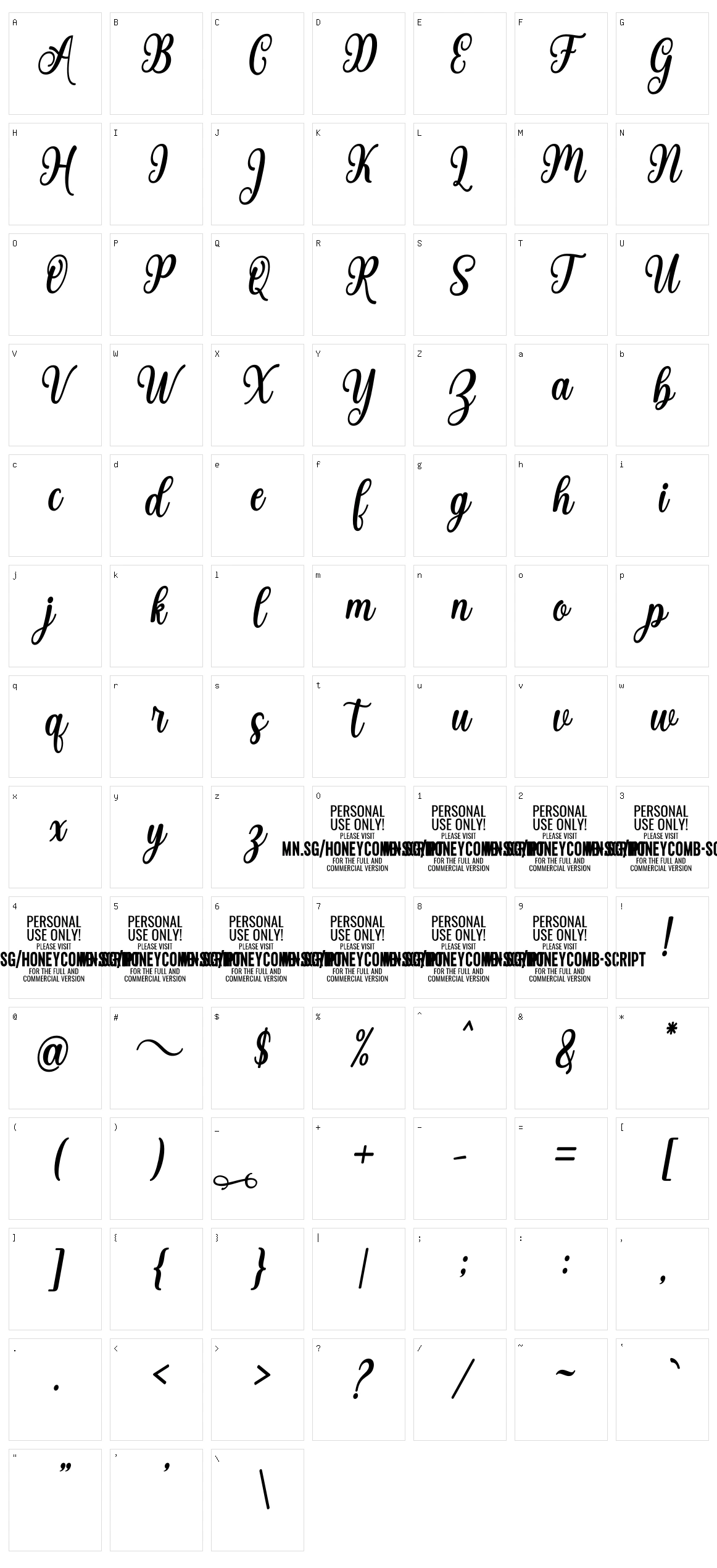
Honeycomb Script is a delightfully charming handwriting font, boasting a cute and quirky aesthetic. With its naive and endearing style, it's perfect for adding a touch of craft-inspired charm to your creative projects.
The birth of Honeycomb Script was sparked by blooming wildflowers and bustling honeybees. The harmonious dance of the bees in their natural habitat inspired the unique and playful letterforms of Honeycomb Script, capturing the magical essence of the natural world's sweetest architect.
Use one or multiple underscores _ anywhere in a word to add a decorative underline.
Example: Sweet_____Honey
Try using # before or after any word to make lovely swashes.
Example: #beehive#
The font offers six high-quality styles: Thin, Regular, Bold, and their italic versions, giving you the flexibility to adapt to any design context.
The font is built with advanced OpenType functionality and has a guaranteed top-notch quality, containing stylistic and contextual alternates, ligatures and more features; all to give you full control and customizability. It has extensive lingual support, covering all Latin-based languages, from Northern Europe to South Africa, from America to South-East Asia. It contains all characters and symbols you'll ever need, including all punctuation and numbers.